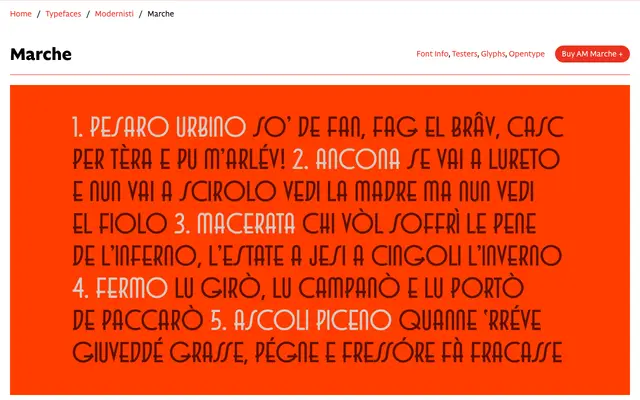
AM Marche
CAST · Fabrizio Falcone · 2024
A single-weight digital revival of an Italian Art Deco wood type from the late 1930s, retaining the original's modular geometry, varying uppercase widths and the characteristic slanted 's' while refining its rough edges.
Drawn by Fabrizio Falcone from surviving type cases and the Xilografia di Verona catalogue, AM Marche preserves the geometric rigour and eccentric proportions of the source material: wide circular O, C, G and Q set against narrow companions, horizontal strokes extending beyond stems, and the 'escalator S' noted by historian Paul Shaw. Minor optical corrections have been applied throughout, including overshooting, subtle stroke modulation and more sinuous curves on B, D, P and R. The result sits in the CAST Modernisti collection alongside AM Tripoli, AM Novecento and AM Augusta, all concerned with Italian twentieth-century letterpress heritage.
A digital revival of an Italian Art Deco wood type with modular geometric construction, idiosyncratic uppercase width contrasts and decorative horizontal stroke extensions; best suited to display use rather than continuous text.